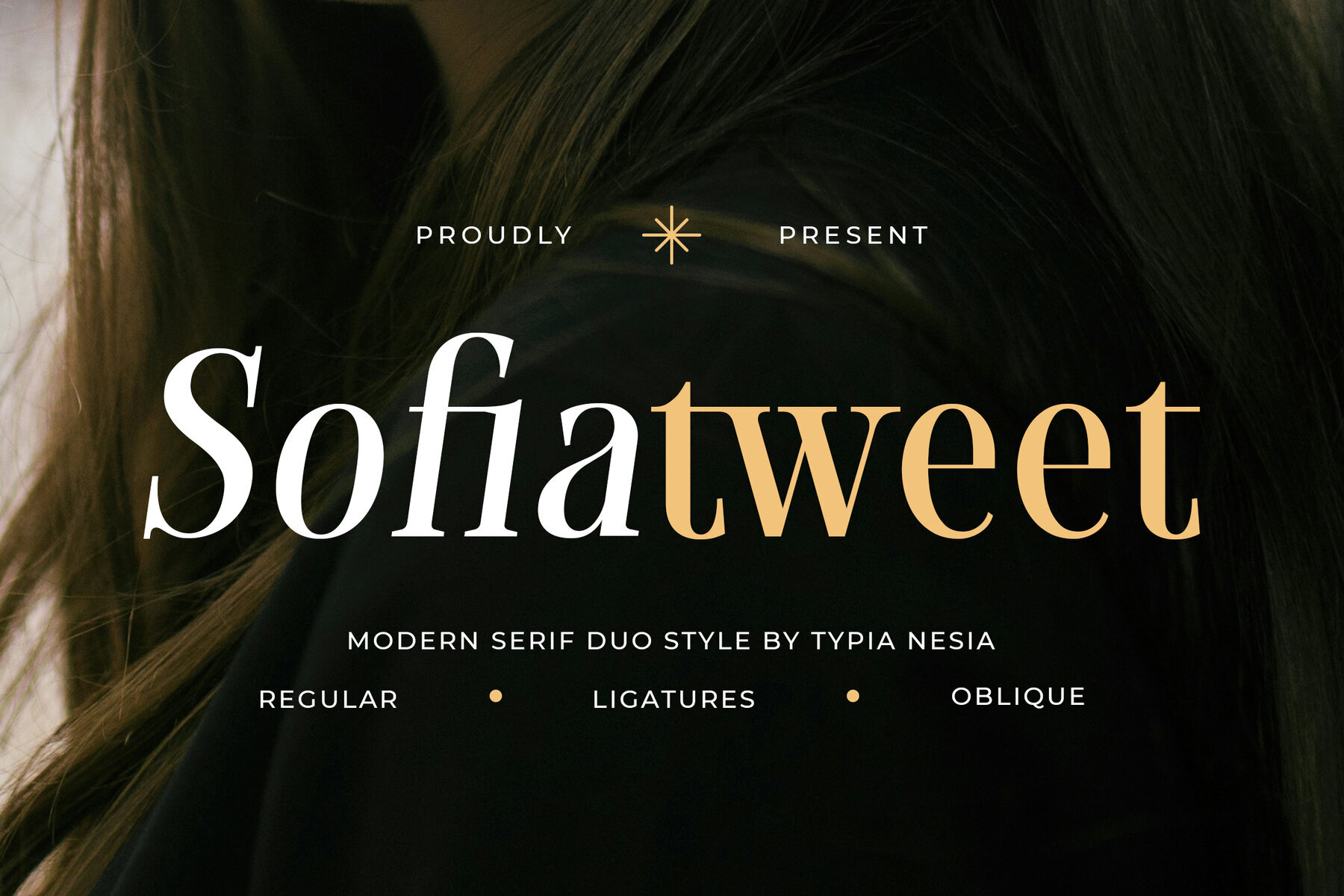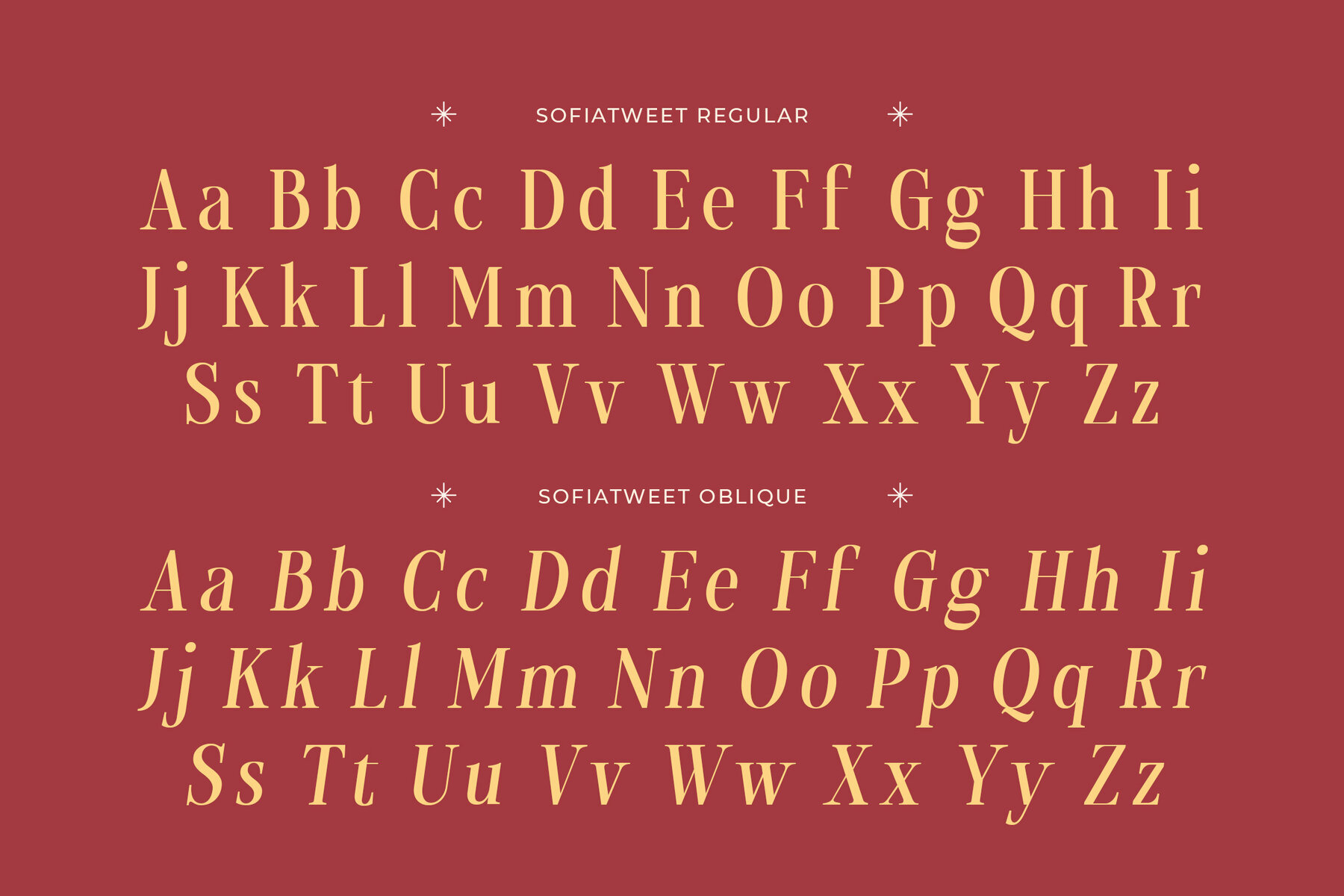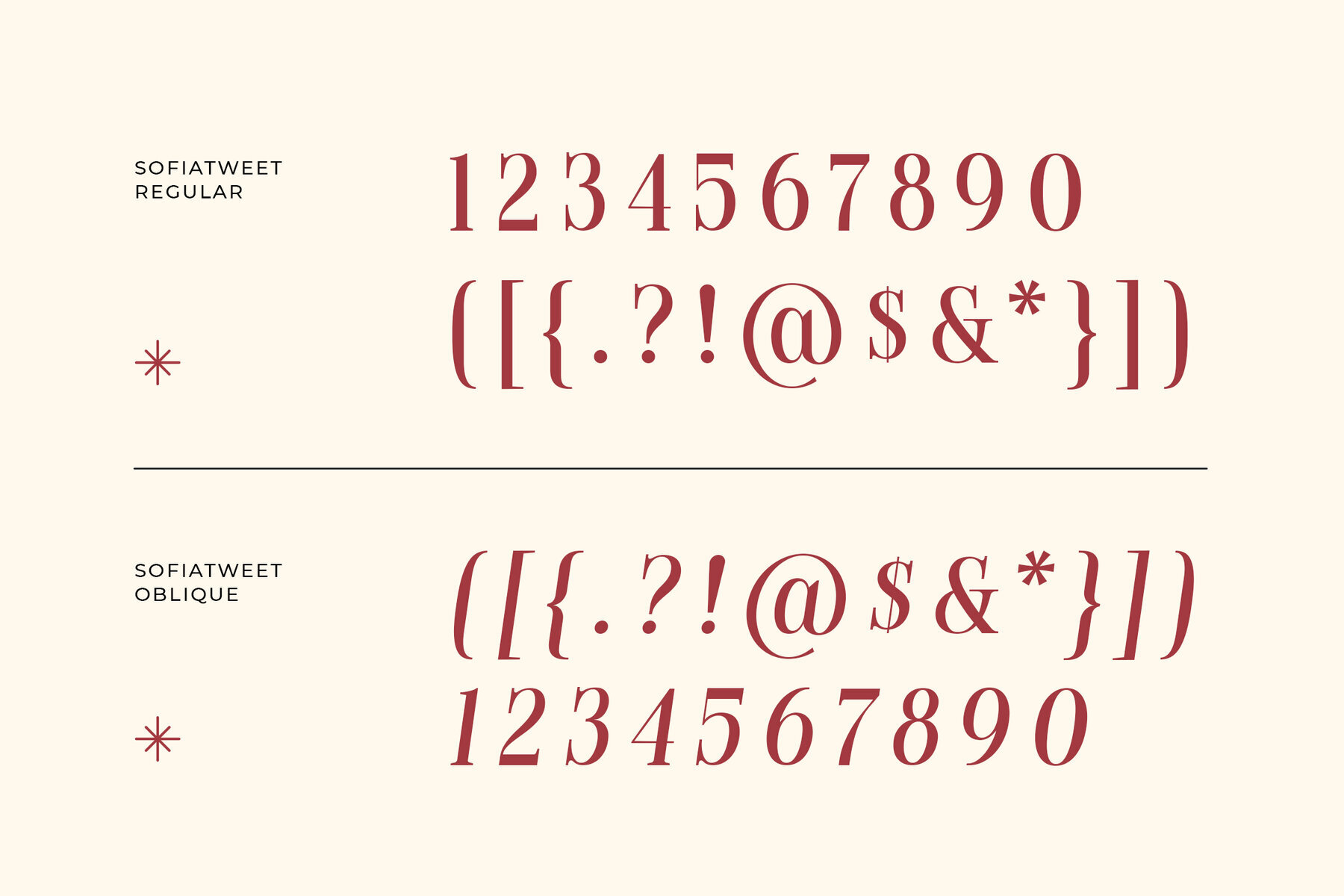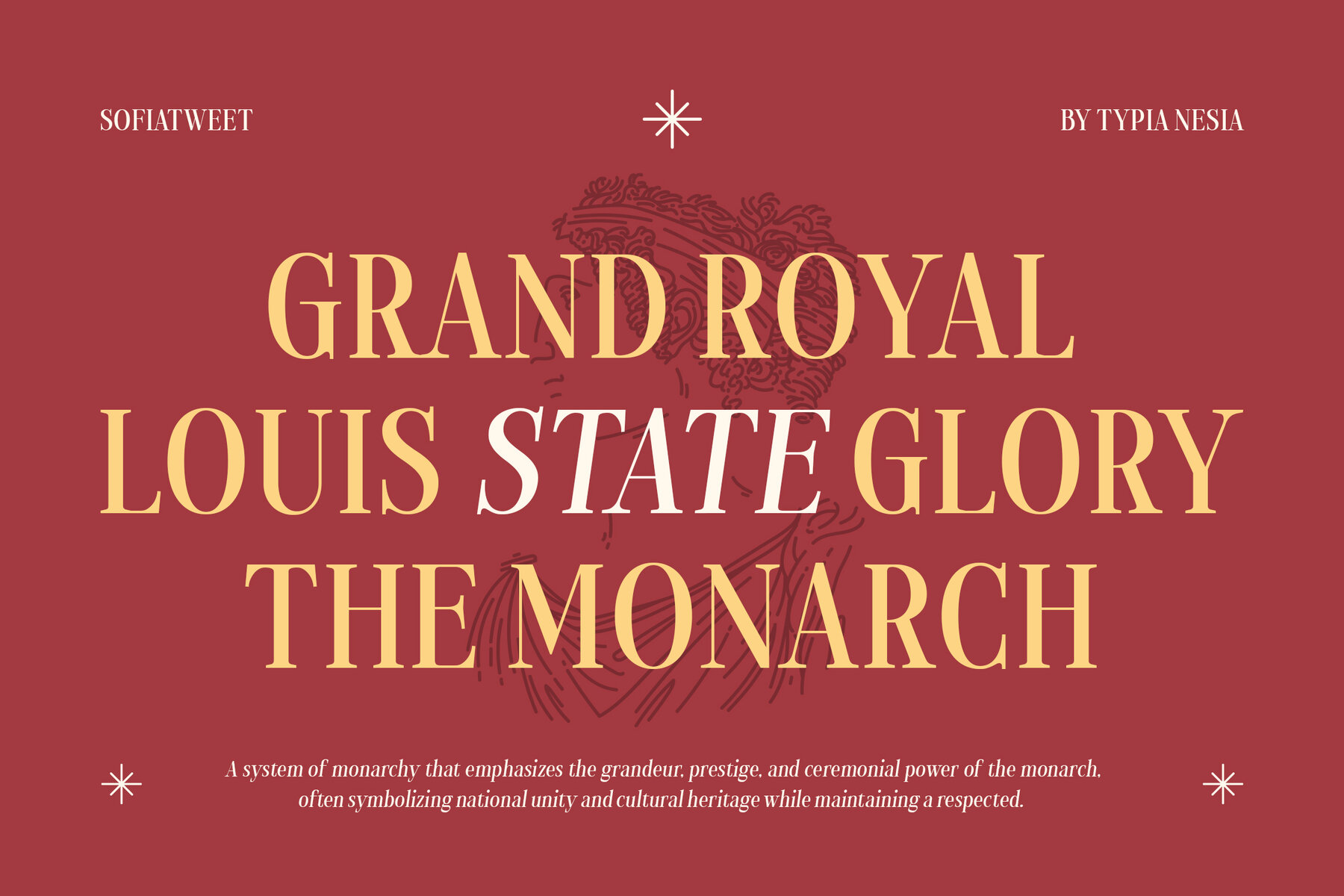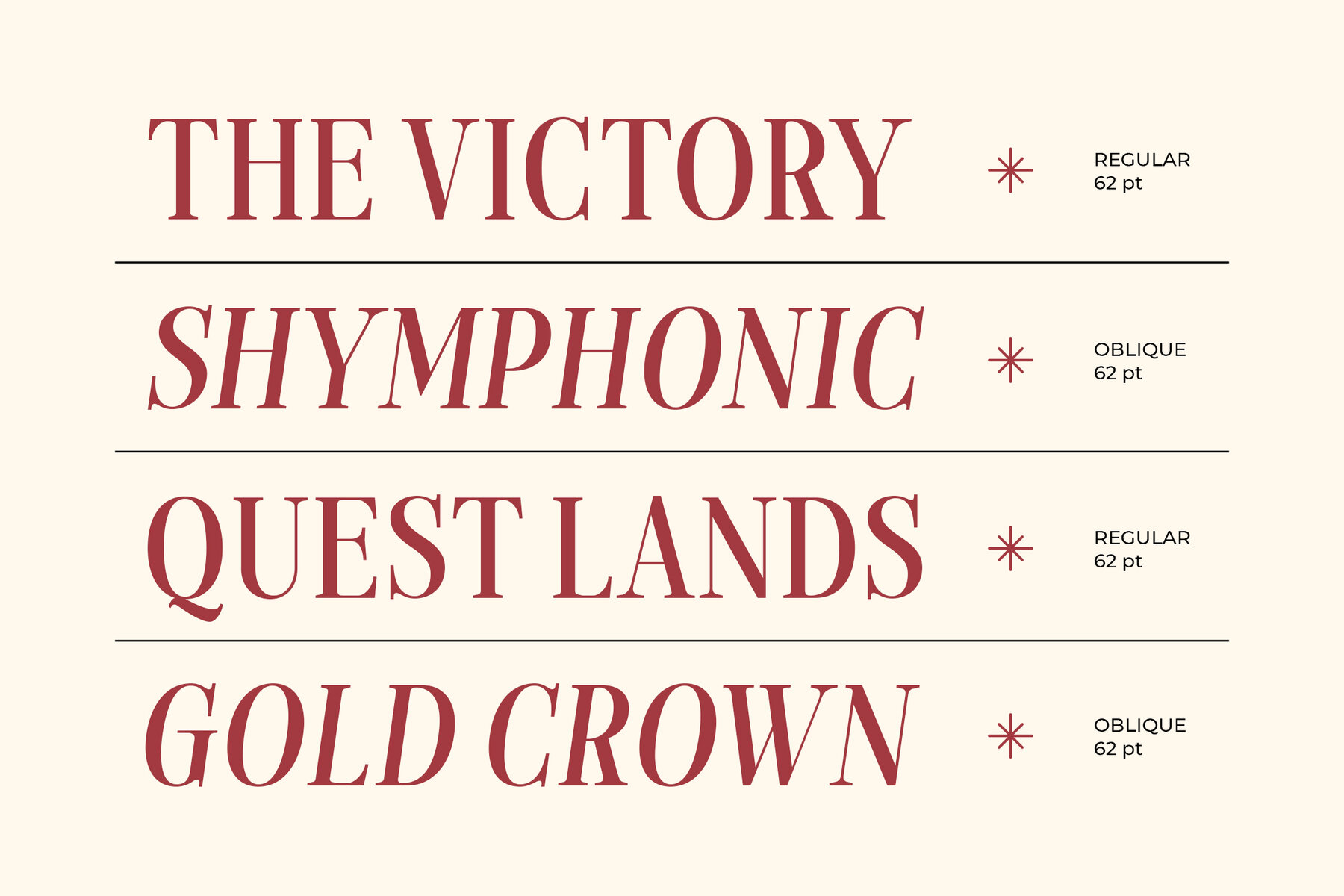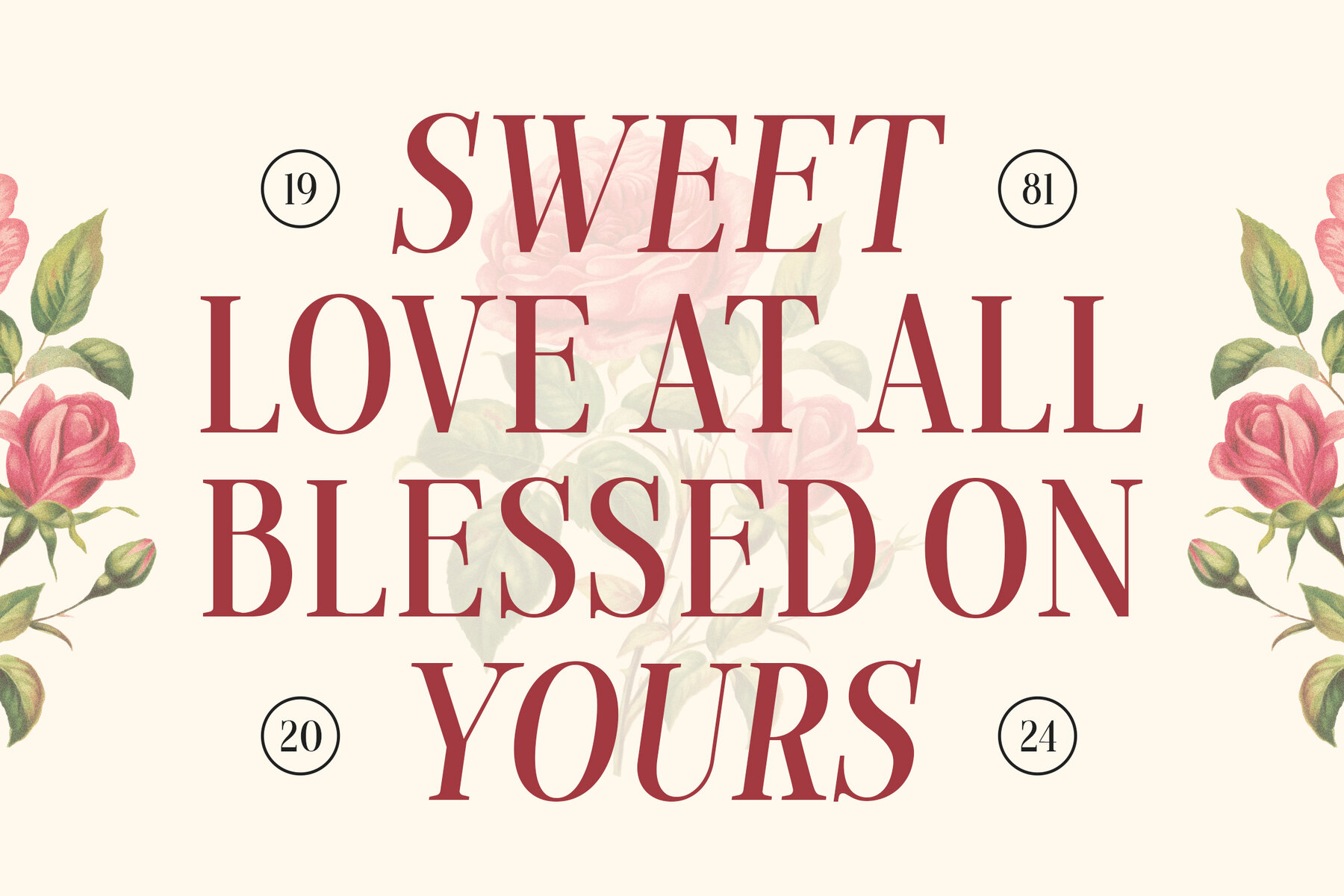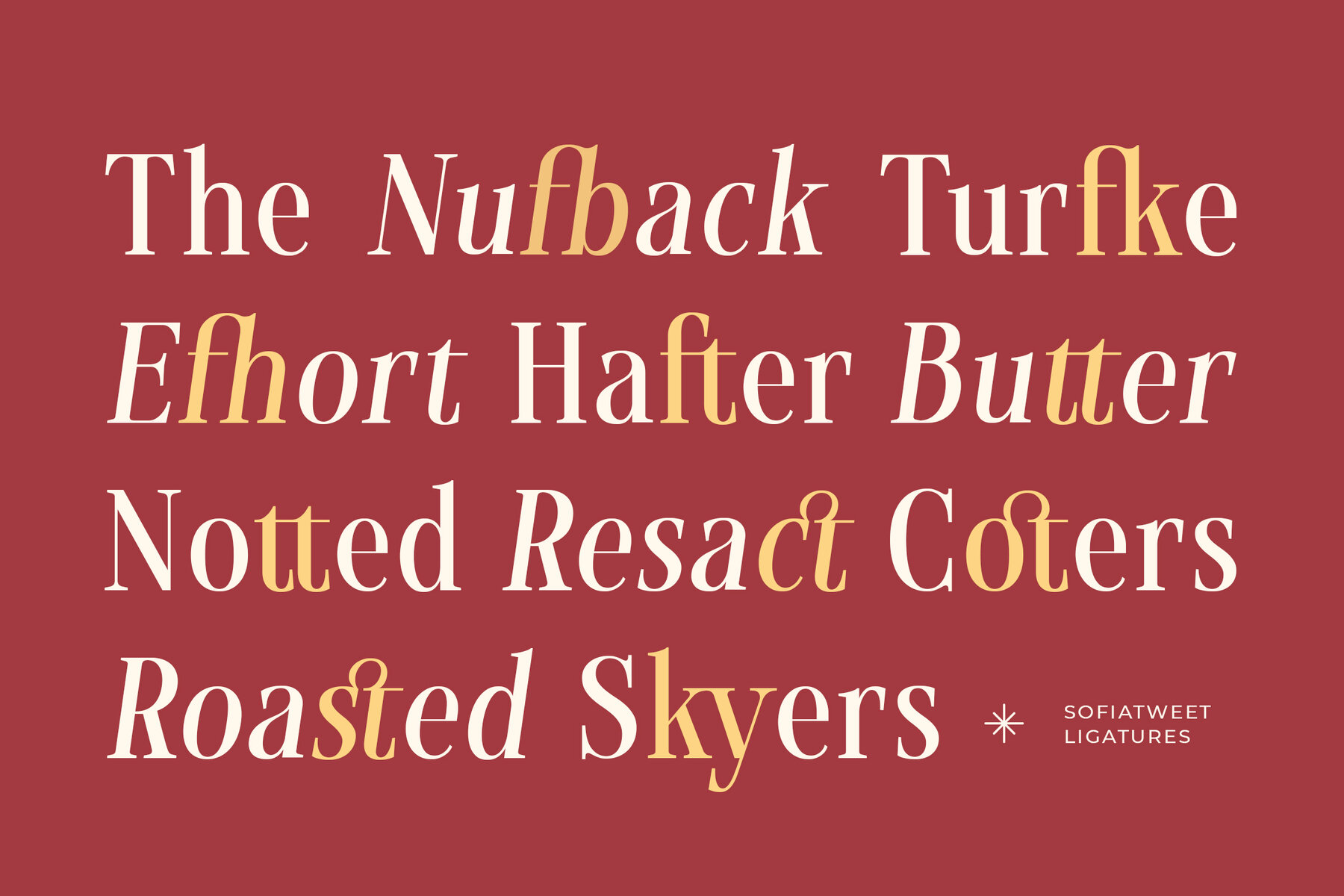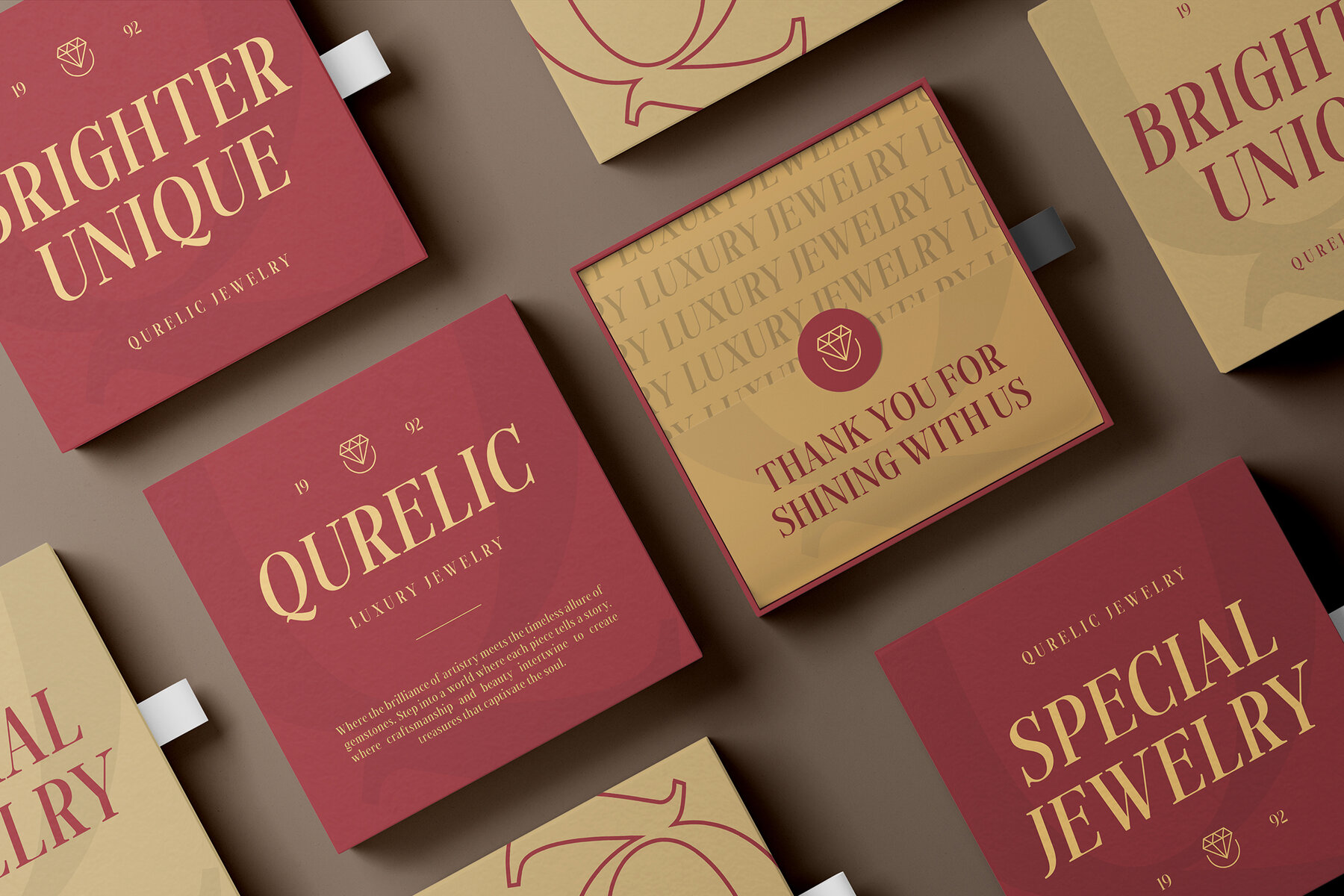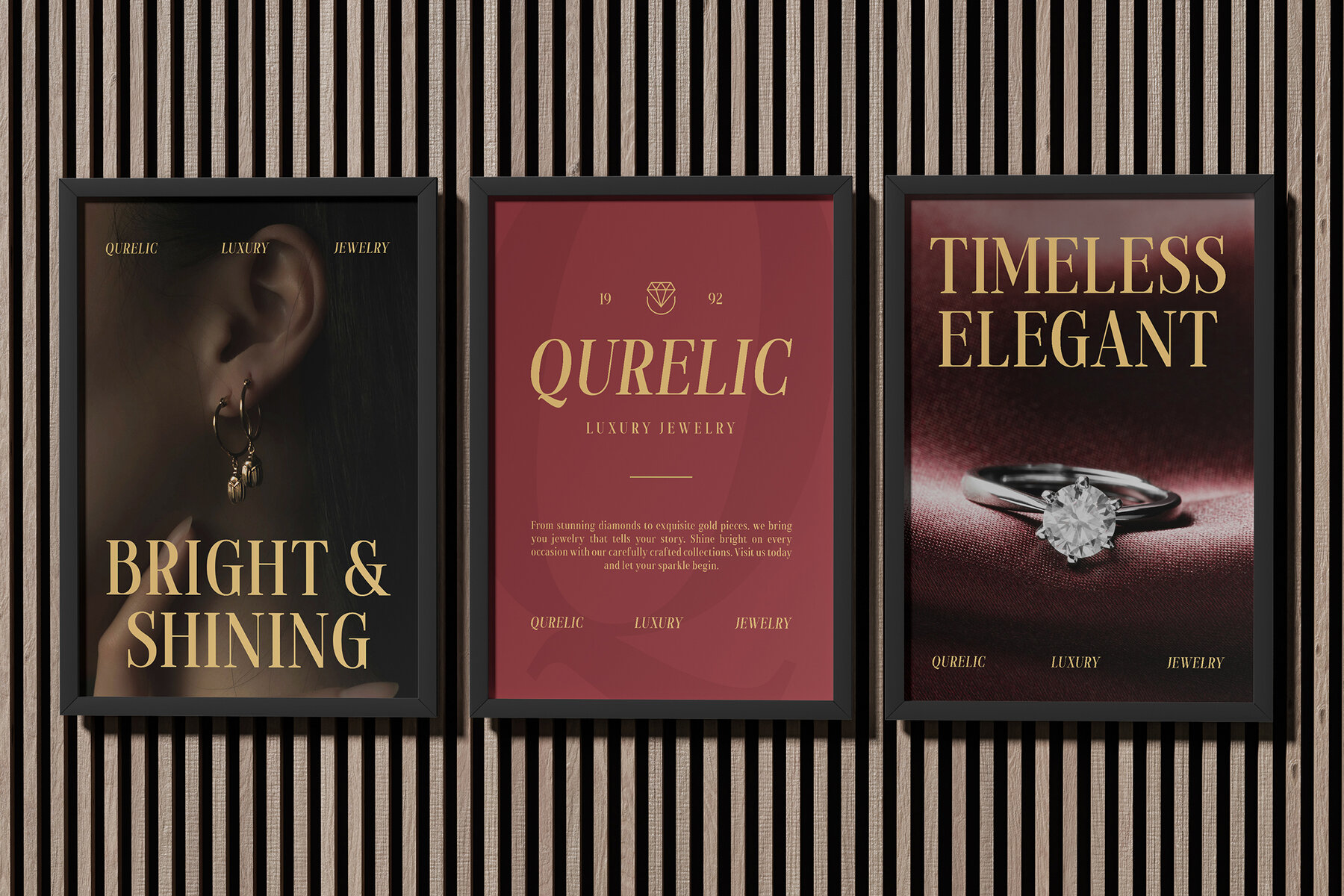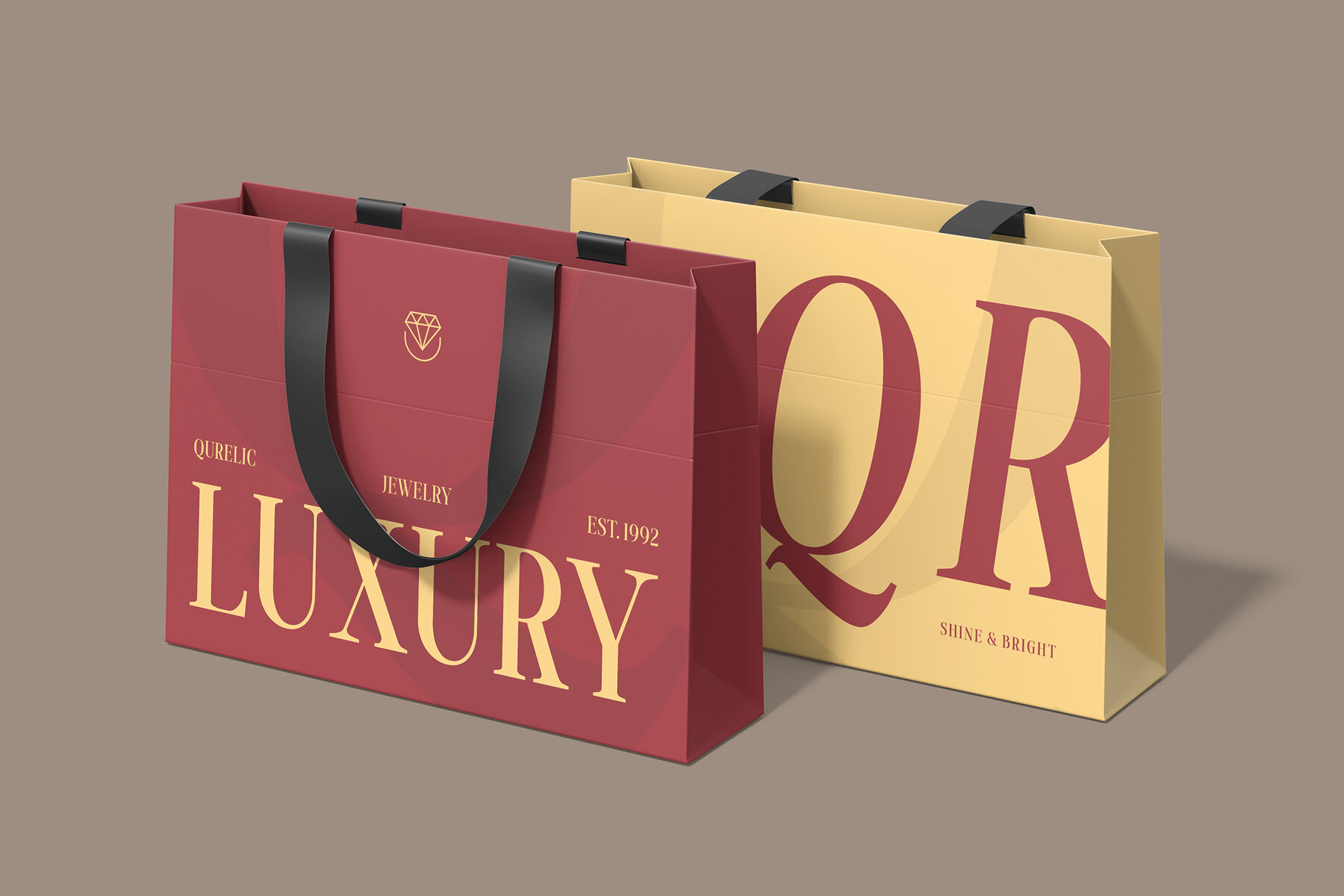
Sofiatweet Font
Sofiatweet Regular
Sofiatweet Oblique
Sofiatweet is a modern, elegant serif font duo available in both regular and oblique styles. Its graceful letterforms and stylish contrast make it ideal for sophisticated and high-end designs. This typeface is perfect for projects such as branding, fashion editorials, wedding invitations, luxury packaging, social media graphics, logos, magazines, beauty product designs, and more.
Featuring uppercase and lowercase letters, punctuation, numerals, ligatures, and alternates, Sofiatweet offers endless possibilities for creative typography. Its multilingual support ensures that your designs can reach audiences worldwide. Designed for those who appreciate exquisite design and luxury, Sofiatweet adds a modern, high-fashion appeal to any project. Whether creating a brand identity or an elegant editorial layout, this font delivers timeless elegance and quality.